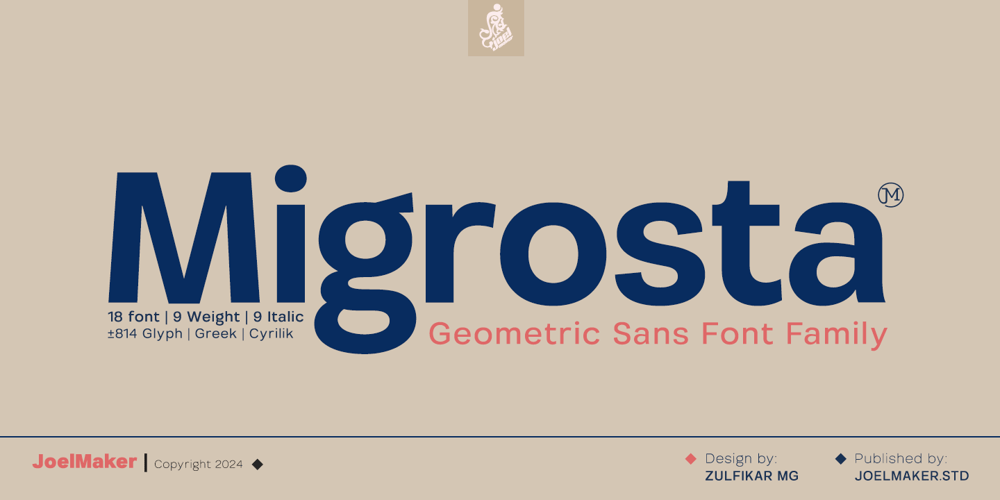
Migrosta JM
Migrosta JM font
Migrosta JM Font Family was designed by Joelmaker and published by Joelmaker. Migrosta JM contains 18 styles and family package options. About Migrosta Geometric Sans is a set of letters designed with original hand sketches using Pencil, so that it produces a font genre label for writing text, labels, logos and branding where the author combines literary characters full of fiction with upright characters and makes this font variation so dynamic, solid and clean. Find your design character in the real world or cyberspace with Migrosta.Migrosta also carries several Opentype features such as Stylistic set, Stylistic Alternates, Ligature and discretionary Ligature so you can switch from one letter to another without changing the ethics of the letter character itself and has been supported by with Axes Weight and Italic, also supports Greek and Cyrillic scripts.Come on, play your fingers on your keyboard to make the illusion of your design dreams come true with Migrosta JM Geometric Sans.Thank You for Visit..